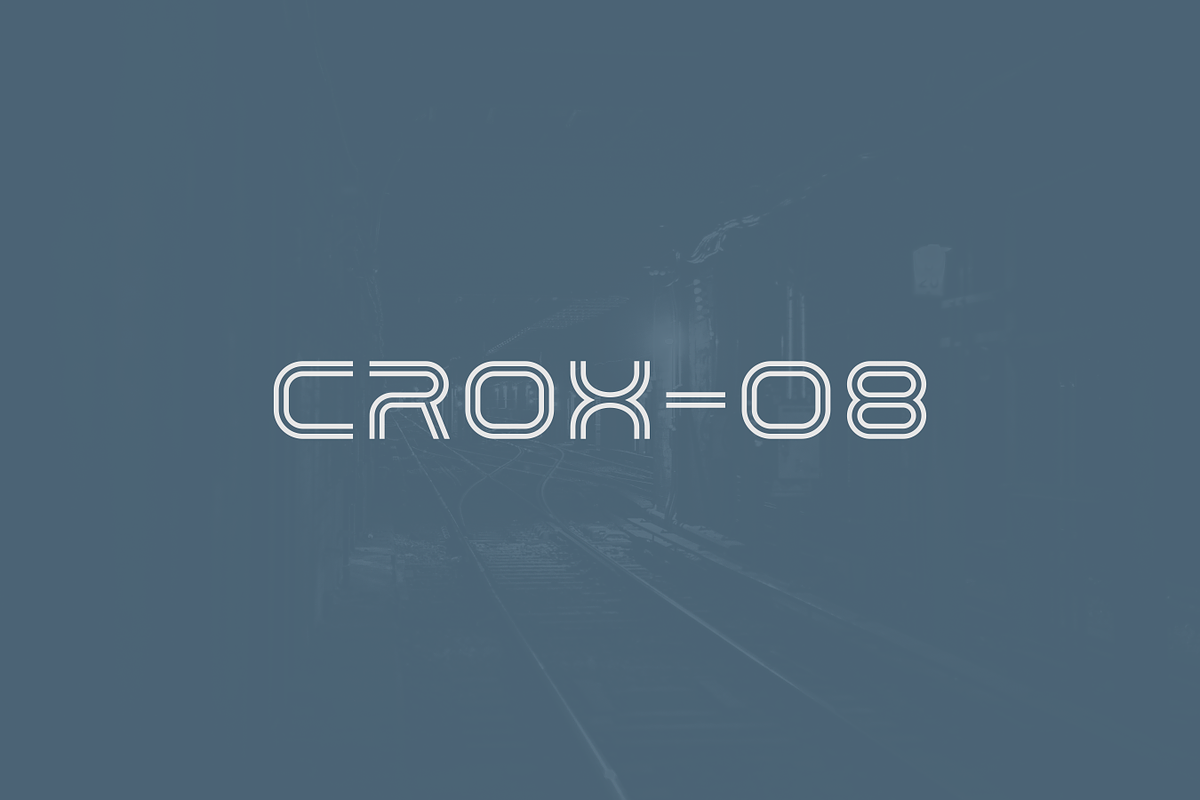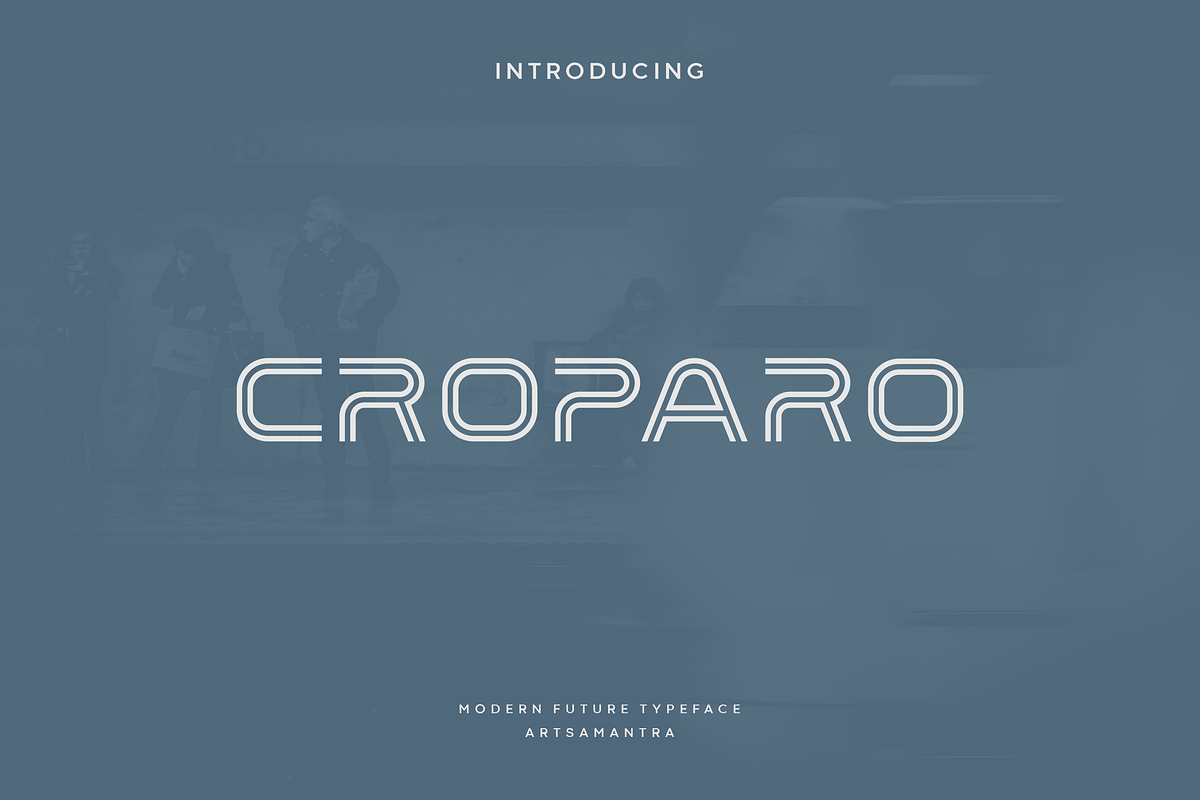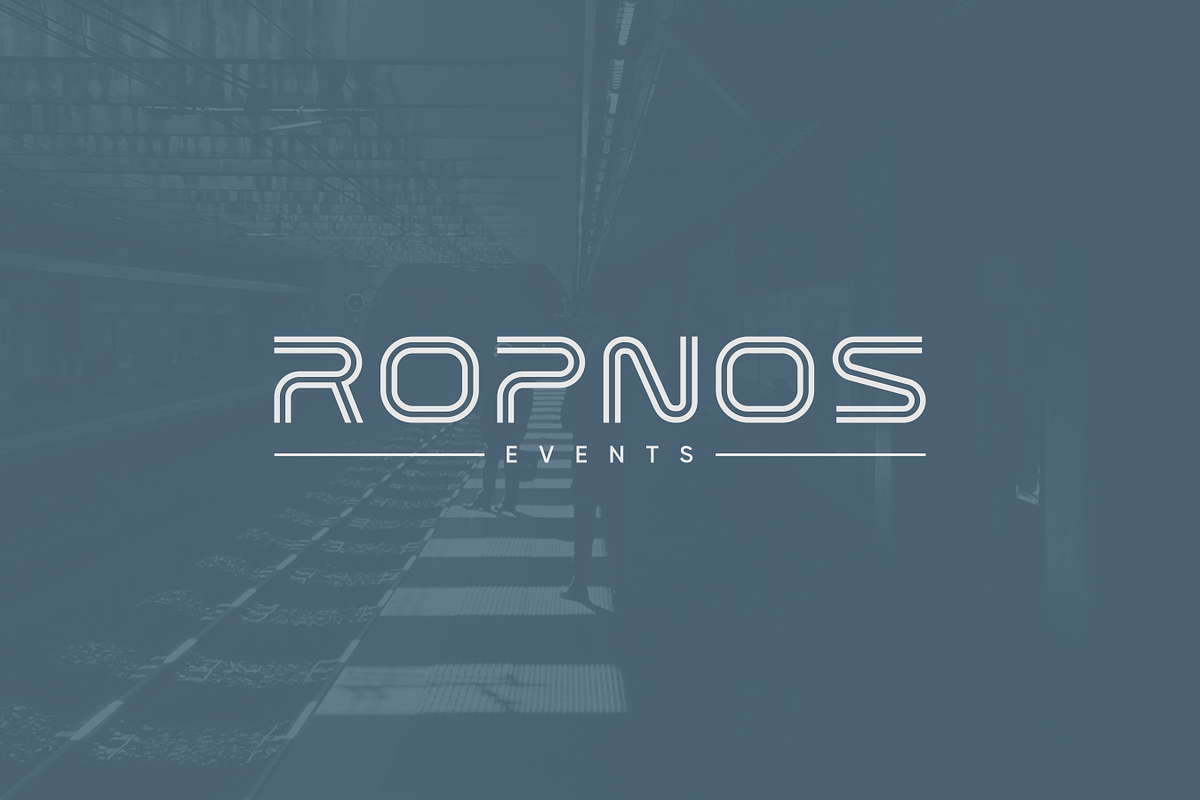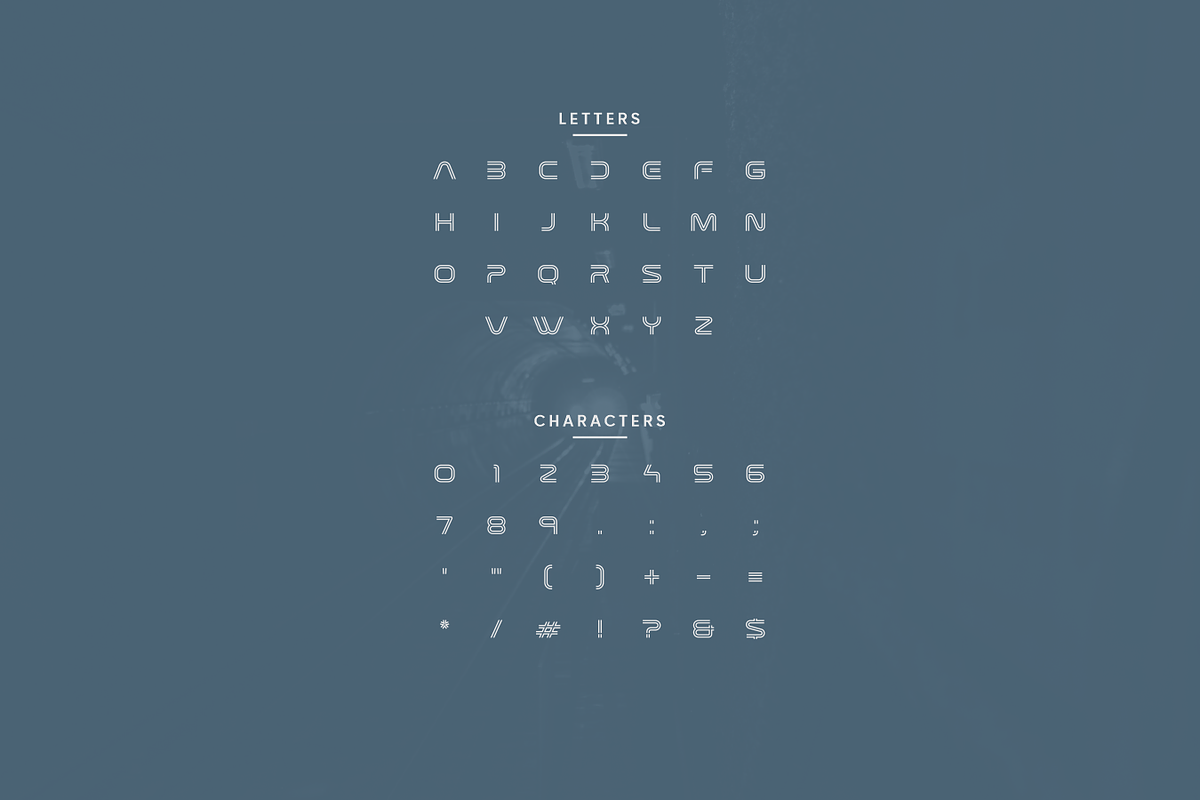
Croparo - Modern Display Typeface
Croparo is a unique all-caps based font that will make your design look futuristic and modern, using a simple design to make it look clean and elegant. You can use this font for any purpose, especially for creating future designs. This font would be great for logo designs, posters, magazines, headlines and many other designs, it’s a very sophisticated font that will make your designs stand out!